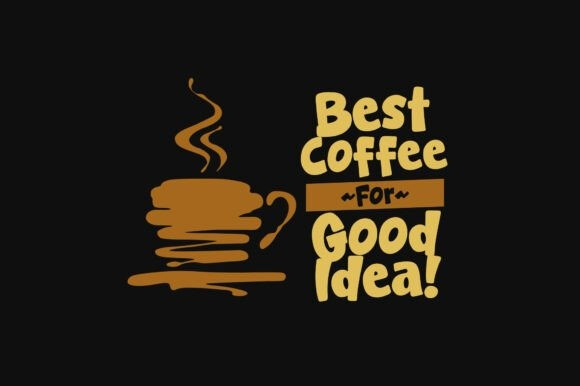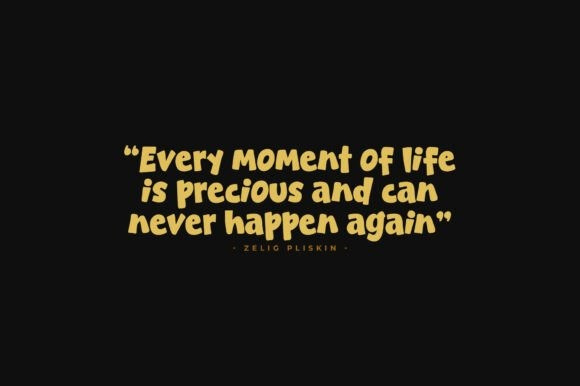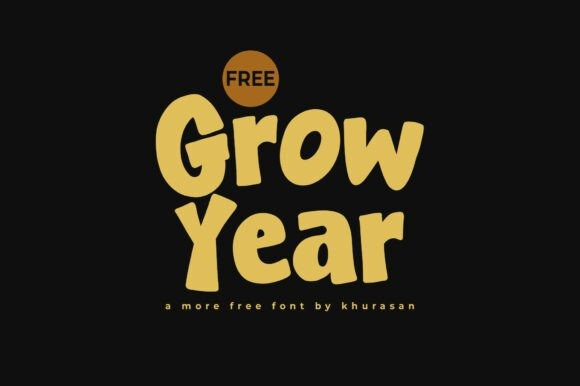
Grow Year Font
Grow Year Font is a chunky, delightful display font that radiates positivity and youthful energy.This Grow Year font features slightly irregular, hand-cut shapes that give it a “paper-craft” or “cut-out” feel, making it perfect for nursery decor, school posters, or quirky branding. The Grow Year typeface is designed to be bold and legible, ensuring your message pops against busy backgrounds. Whether you are creating a logo for a sustainable brand or a cover for a children’s magazine, the Grow Year font brings a sense of joy and approachability.
Pair the Grow Year typeface with bright, earthy color palettes to fully lean into its organic, playful nature.